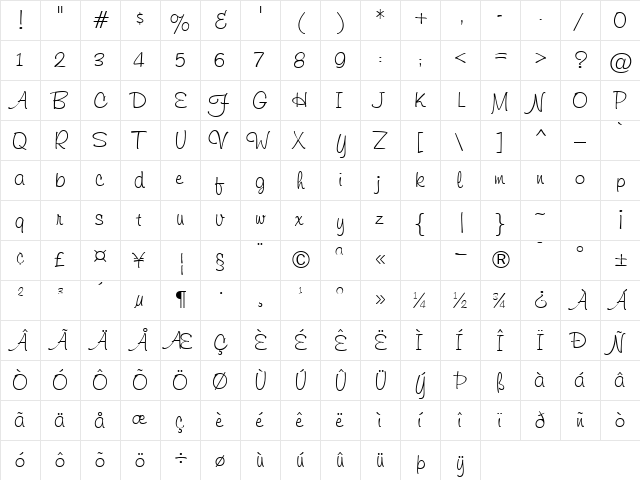
GE Light Stroke Regular
Design Context for GE Light Stroke Typeface
GE Light Stroke is a composed and adaptable typeface that performs quietly and consistently across a wide range of design contexts. The delicate stroke weight brings airiness and refinement to layouts.